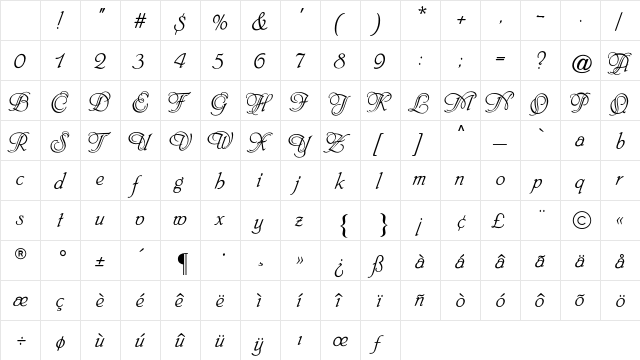
Complete Phyllis CG Initials Regular glyph index. Displaying only characters natively supported by Phyllis CG Initials Regular font.
Phyllis CG Initials is a composed and adaptable typeface that performs quietly and consistently across a wide range of design contexts.